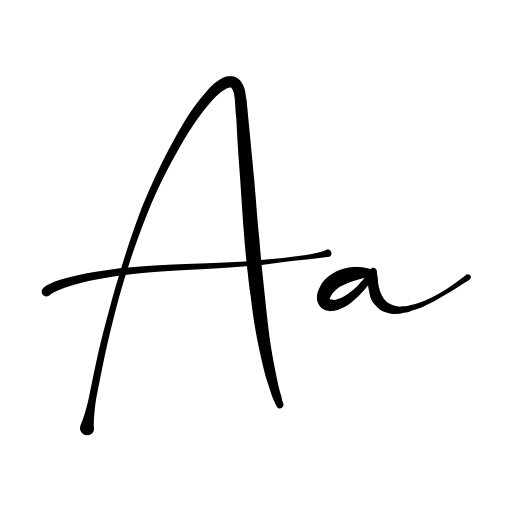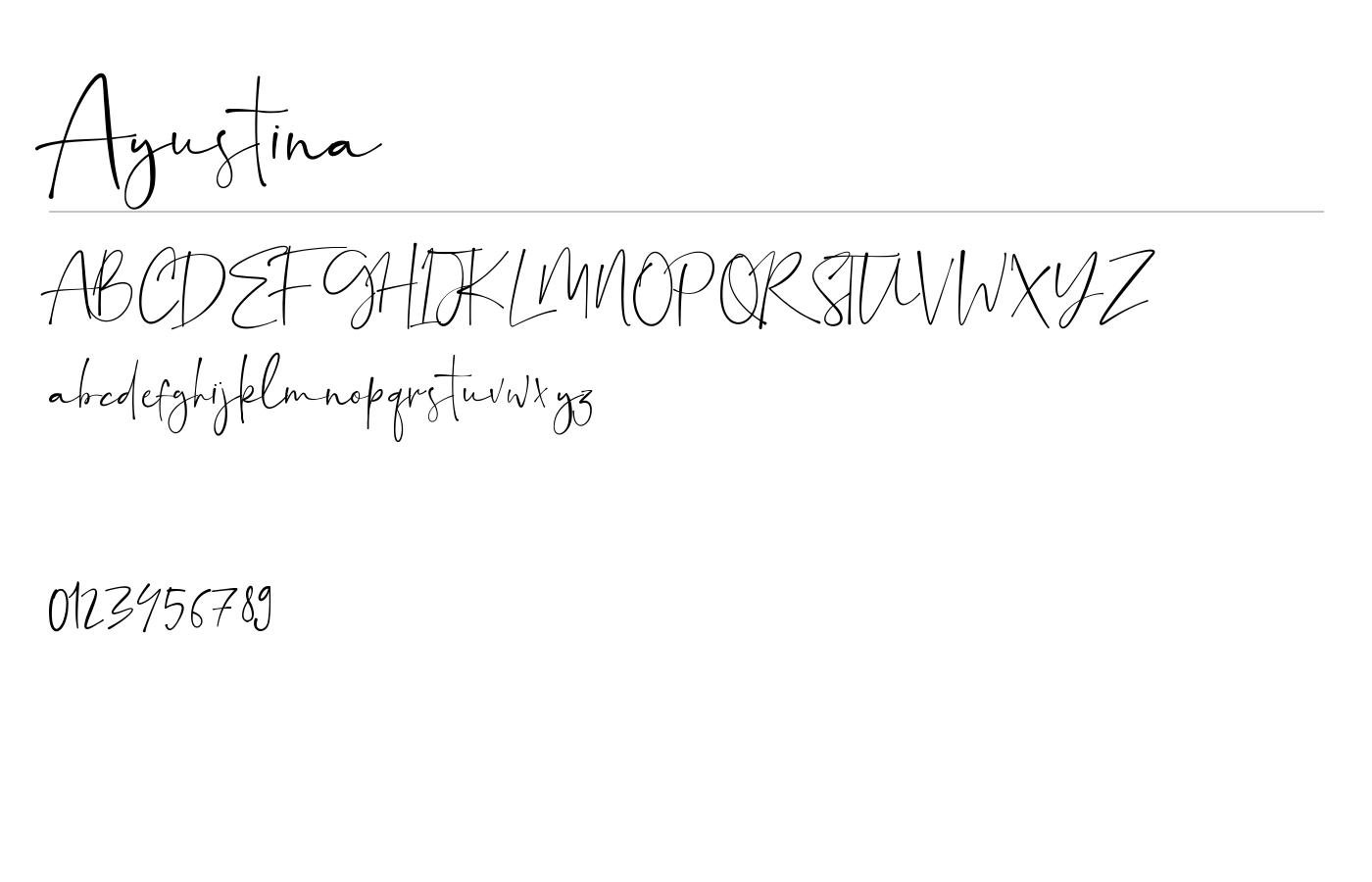
Ayustina is a delicate, handwritten script font that features tall, slender letterforms with a playful and casual feel. Its thin strokes and natural, flowing style make it perfect for personal branding, invitations, and creative projects where a friendly and elegant touch is desired. This font shines in designs that need a charming, approachable look without sacrificing readability.
Ayustina Font
About Ayustina Font